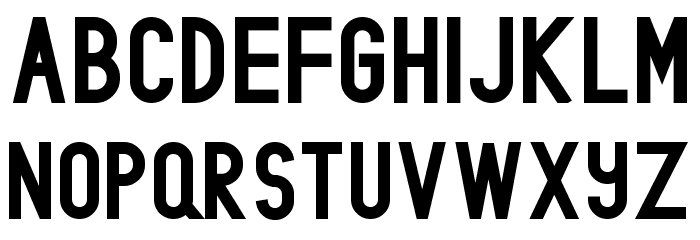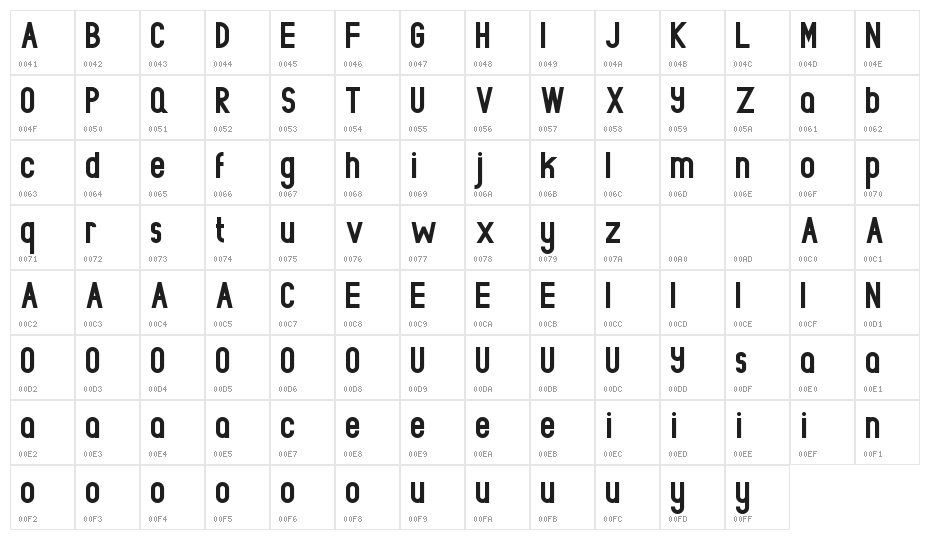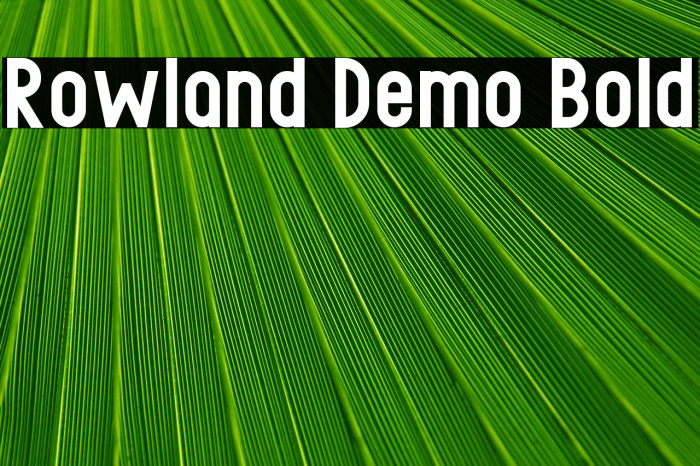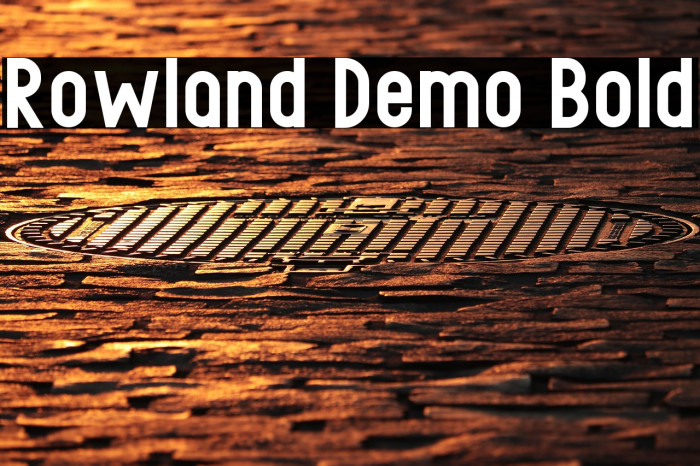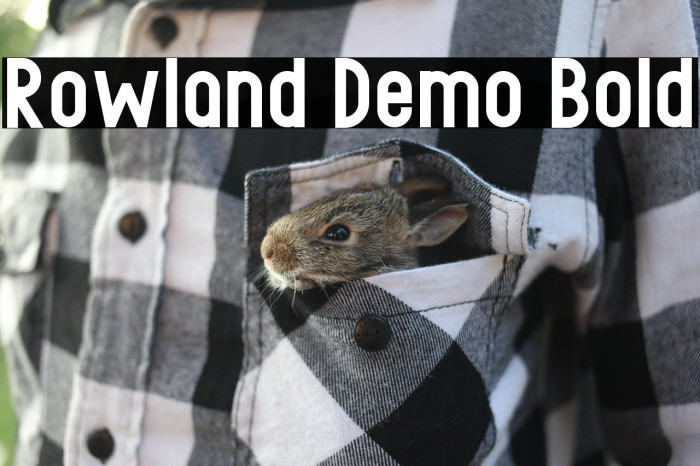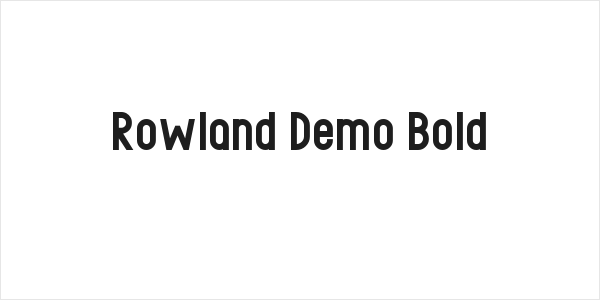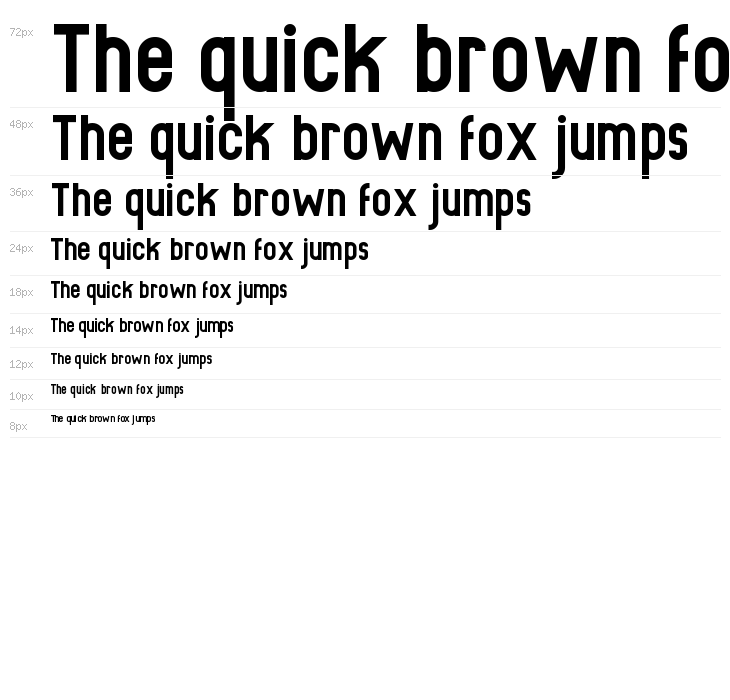
Rowland Demo Bold Font
Rowland Demo Bold Description
This font exhibits a bold and assertive style, characterized by its thick strokes and strong presence. The uppercase letters are uniform in height, with a slightly condensed appearance that adds to its impactful look. The lowercase letters maintain a consistent weight, providing a harmonious balance between the upper and lower cases. The numerals are clear and legible, matching the boldness of the alphabetic characters. Special characters are designed with the same boldness, ensuring consistency across all glyphs. This font's bold nature makes it suitable for attention-grabbing headlines and titles.